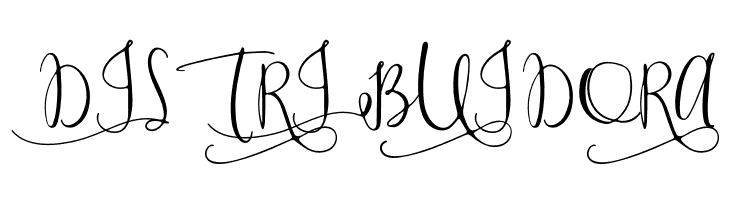
An elegant, cursive font with intricate loops and swashes.
An elegant script font with intricate swashes and medium contrast, perfect for decorative uses.